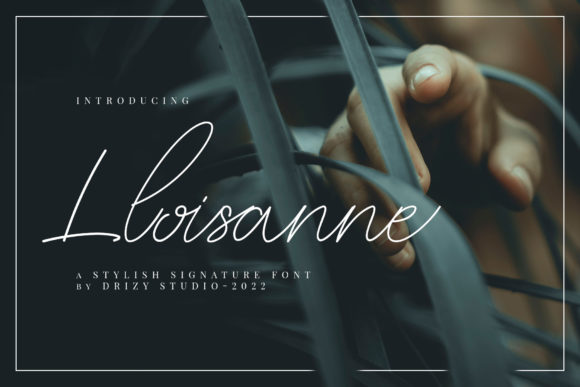
Introducing Lloisanne
Crafted with meticulous care, Lloisanne is an exquisite script font that exudes the allure of romance and elegance. Each letterform has been meticulously designed to evoke the graceful curves of calligraphy, creating an aesthetic that is both timeless and captivating.
As you explore the Lloisanne font, you'll be mesmerized by its versatility and charm. Its flowing lines and enchanting swashes are perfect for adding a touch of sophistication to your wedding invitations, Save the Dates, or any other special occasion. Imagine your guests' delight as they receive these lovingly crafted invitations, their hearts filled with anticipation for your joyous celebration.
Beyond wedding stationery, Lloisanne shines as a font of choice for any project that calls for a romantic and personalized touch. Its ability to transform ordinary words into works of art makes it a perfect fit for greeting cards, love letters, and even elegant branding for businesses that seek to evoke a sense of warmth and connection.
The Lloisanne font is not just a collection of letters; it is an invitation to express your creativity and unleash your imagination. Its romantic allure will inspire you to create designs that are as unique as your love story. With every word you write, you'll infuse your creations with a sense of timeless elegance that will leave an unforgettable impression.
Whether you're a seasoned designer or simply seeking a font that captures the essence of love and celebration, Lloisanne is the perfect choice. Its versatility, charm, and enchanting beauty will elevate your projects to new heights of sophistication and romance.